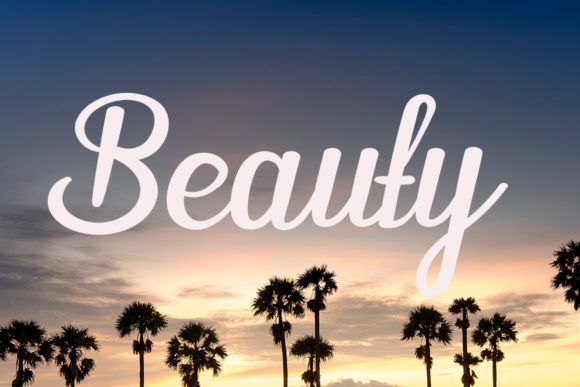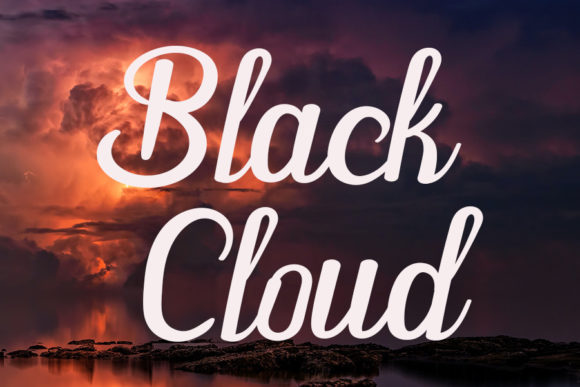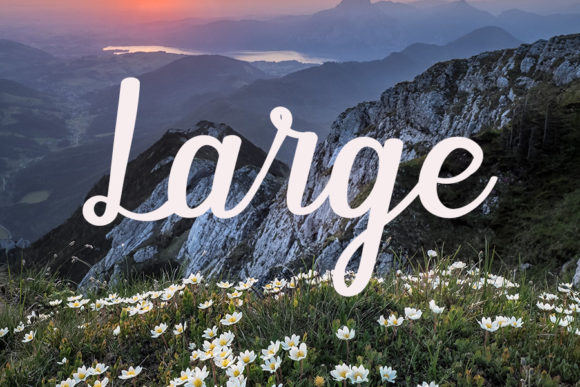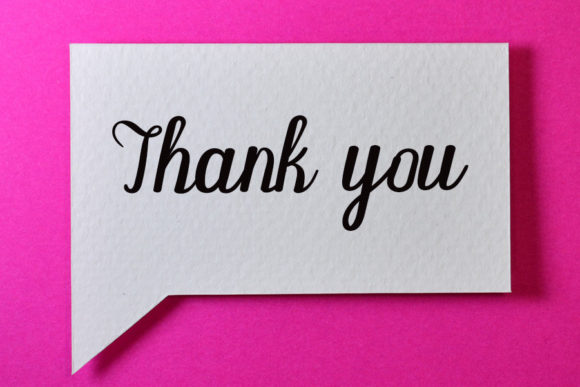
The Perfect Script for Nature-Inspired Designs
Have you ever been walking in the woods, surrounded by the soothing sounds of nature, and felt an overwhelming urge to create something beautiful? For many designers, this is a familiar moment that sparks their creativity. The tranquility of nature has a way of inspiring us to create something truly special. And that’s exactly what the Beautiful Nature Font is all about – capturing the essence of nature in a elegant and timeless script.
Designed to enhance the beauty of your projects, the Beautiful Nature Font is a versatile tool that can add a touch of sophistication to any design. Whether you’re working on a wedding invitation, a landscape photography project, or a travel brochure, this font is sure to make your design stand out. With its balanced and varied form, the Beautiful Nature Font is a valuable asset for any designer looking to add a touch of natural beauty to their work.
Key Features of Beautiful Nature Font
- Font Family: Beautiful Nature Font is a high-quality, modern script font designed to evoke feelings of serenity and natural beauty.
- Unique Characteristics: The font features a flowing, cursive design with subtle texture and organic elements, giving it a unique and eye-catching appearance.
Beautiful Nature Font Review
I recently had the chance to work with the “Beautiful Nature Font”, and I must say it’s a beautiful addition to any design project. ✨ The font’s elegant and natural feel makes it perfect for outdoor-themed projects or any design that requires a touch of serenity. ✨ The font is well-suited for use in headings and titles, adding a sense of sophistication to any design.
One of the standout features of this font is its versatility. It can be used in a variety of contexts, from wedding invitations to outdoor signage. The font’s natural feel also makes it easy to pair with other fonts, allowing for a wide range of design possibilities.
While the “Beautiful Nature Font” is a great addition to any design project, there are a few limitations to consider. ⚠️ One of the main limitations is the font’s lack of scalability. While it looks great at larger sizes, it can become pixelated and distorted at smaller sizes. ⚠️ Additionally, the font may not be suitable for use in smaller text, as it can be difficult to read.
In conclusion, the “Beautiful Nature Font” is a beautiful and versatile addition to any design project. While it has a few limitations, the font’s natural feel and elegant design make it a great choice for a wide range of projects.
Design Considerations
When working with the “Beautiful Nature Font”, consider the following design considerations:
- Use the font in headings and titles for maximum impact.
- Pair the font with other fonts to create a unique and interesting design.
- Avoid using the font in smaller text, as it can be difficult to read.
- Be mindful of font size and scaling, as the font can become pixelated and distorted at smaller sizes.
Getting the Most Out of the Beautiful Nature Font
For the most effective use of the Beautiful Nature Font, consider the following tips:
Use the font in combination with natural imagery and earthy tones to create a cohesive look.